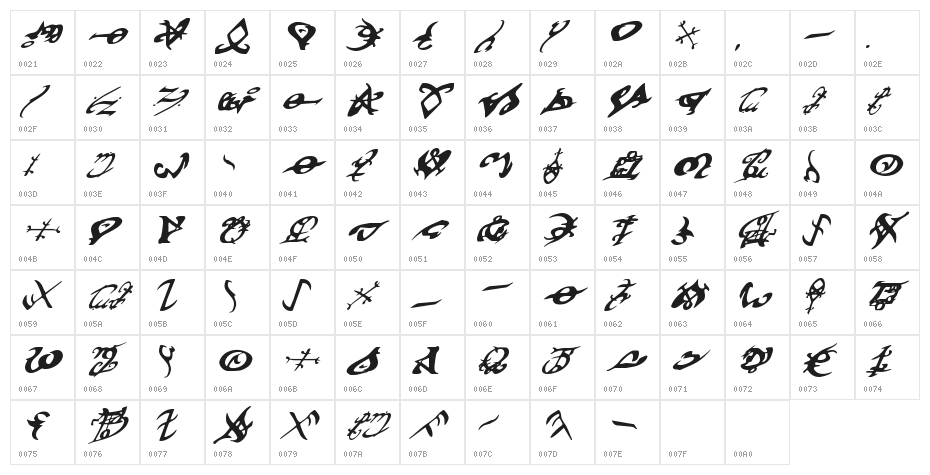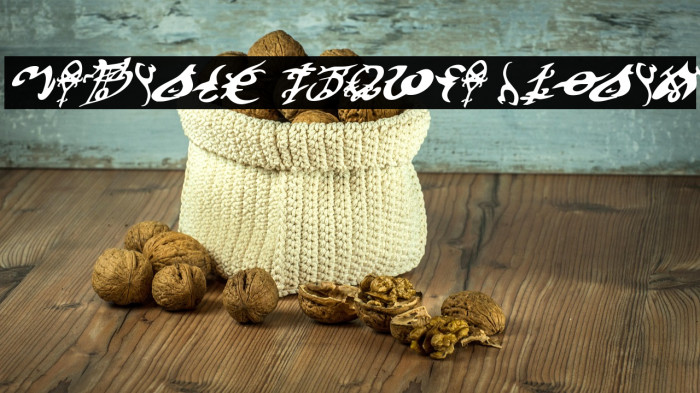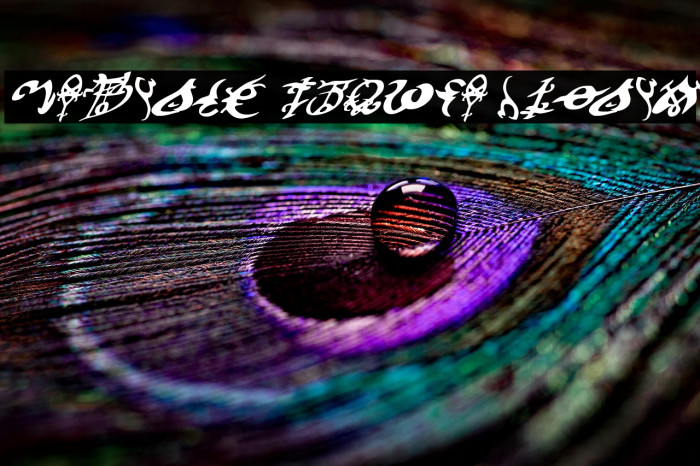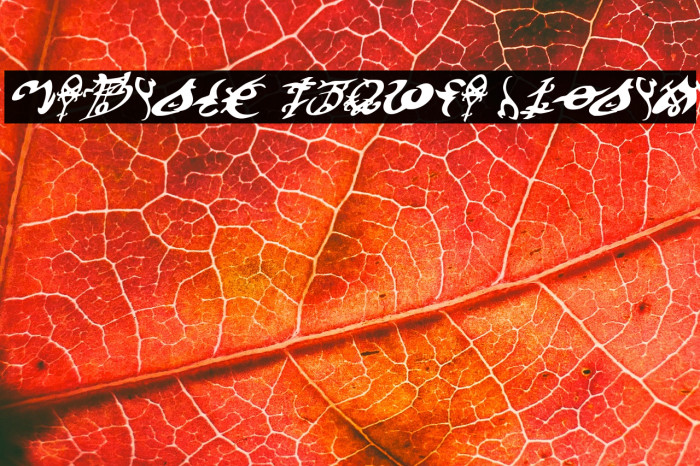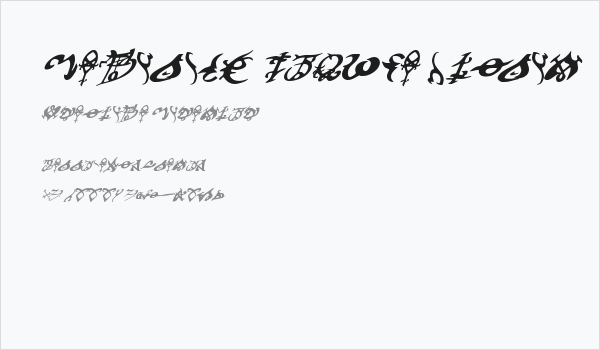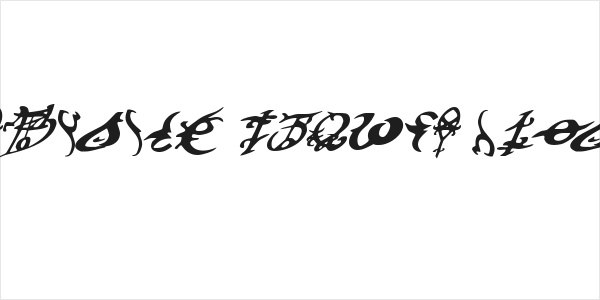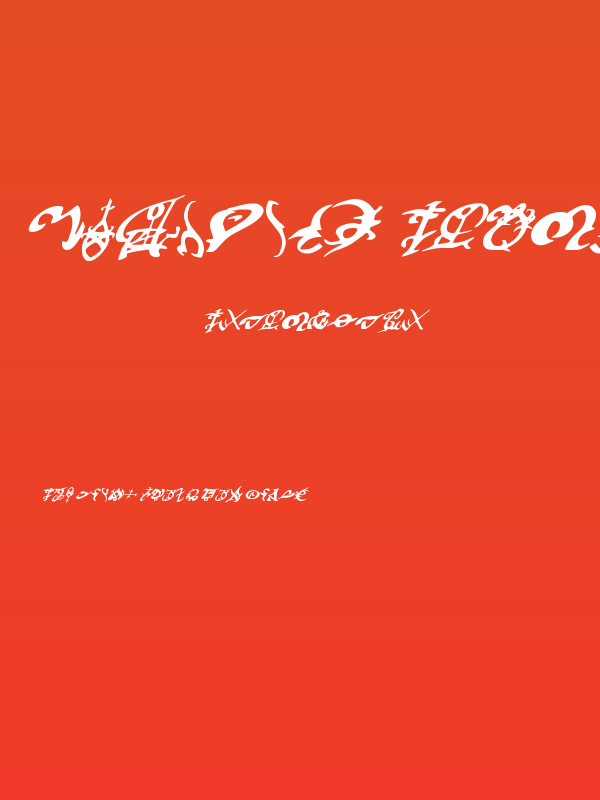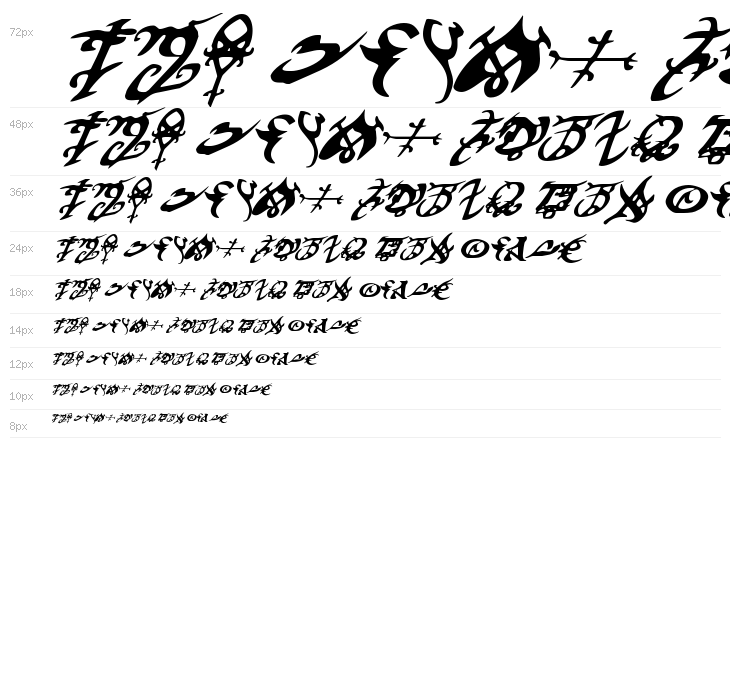
Devil's Tongue Italic Font
Devil's Tongue Italic Description
This font features an intricate and highly stylized design, characterized by its sharp, angular forms and dramatic flourishes. The letters are interconnected with sweeping curves and pointed edges, creating a sense of movement and energy. The overall appearance is bold and striking, with a heavy emphasis on artistic expression. The font's unique style makes it stand out, with each character appearing almost like a piece of abstract art. The complexity of the design may challenge readability, but it offers a visually captivating experience.
| Use Case | Logos, Posters, Album Covers |
| Proposed Projects | Ideal for projects requiring a dramatic and artistic touch, such as album covers, posters, or branding for edgy or alternative products. |